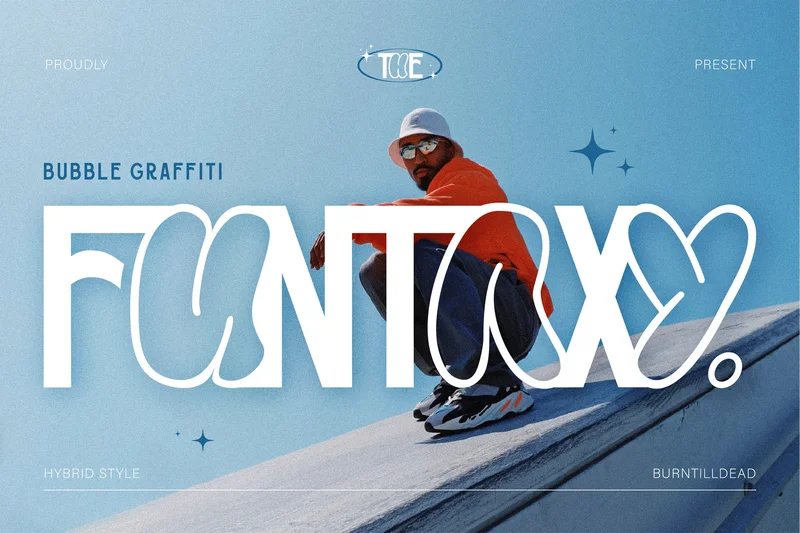
Funtaxy
Proudly present, Funtaxy, a hybrid typeface that combining the playful bubble graffiti and the simplicity of sans serif. This blends of this font creating a striking contrast between youthful and simplicity. Bubble graffiti evoking sense of energy and spontaneity. The san serif delivers clean lines and contemporary feel, emphasizing clarity and sophistication. Together, they celebrate the fusion of street art and design, also make your project stand out because of the visual creativity and textual communication. Ideal for social media marketing, poster, campaign, ads and many more.